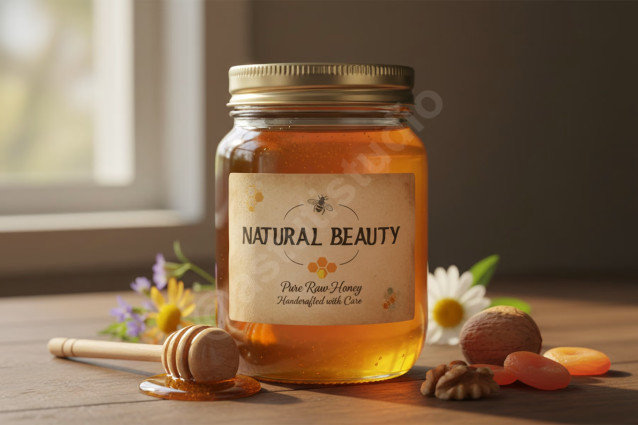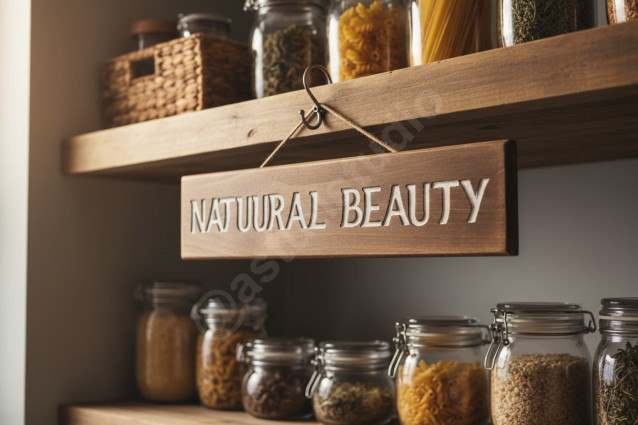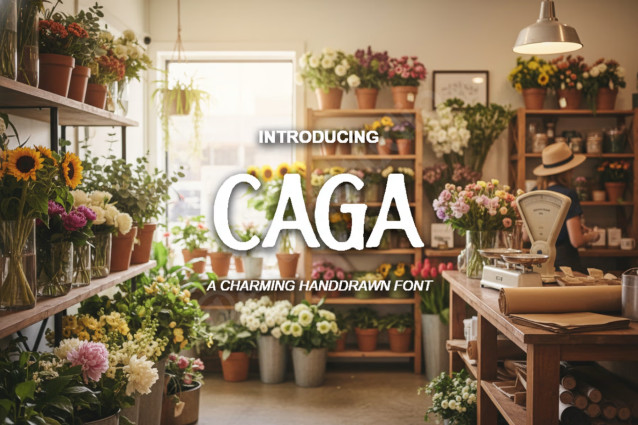
Caga – Modern Luxury Serif Font
Introducing Caga, a meticulously crafted modern serif typeface designed for the discerning creative. Caga blends classic structure with contemporary curves, offering an unparalleled level of sophistication perfect for high-end luxury branding, impactful editorial design, and engaging, elevated social media presence. Its sharp contrast and graceful terminals ensure legibility and undeniable visual appeal, making every design statement powerful and refined.
Features That Elevate Your Work:
- Full Uppercase and Lowercase Glyphs
- Extensive Punctuation, Numerals, and Symbols
- Multilingual Support (Western, Central, and South Eastern European languages)
- High Contrast Display Weight
- Optimized Kerning for seamless reading flow
- Perfect for both large display titles and detailed body text